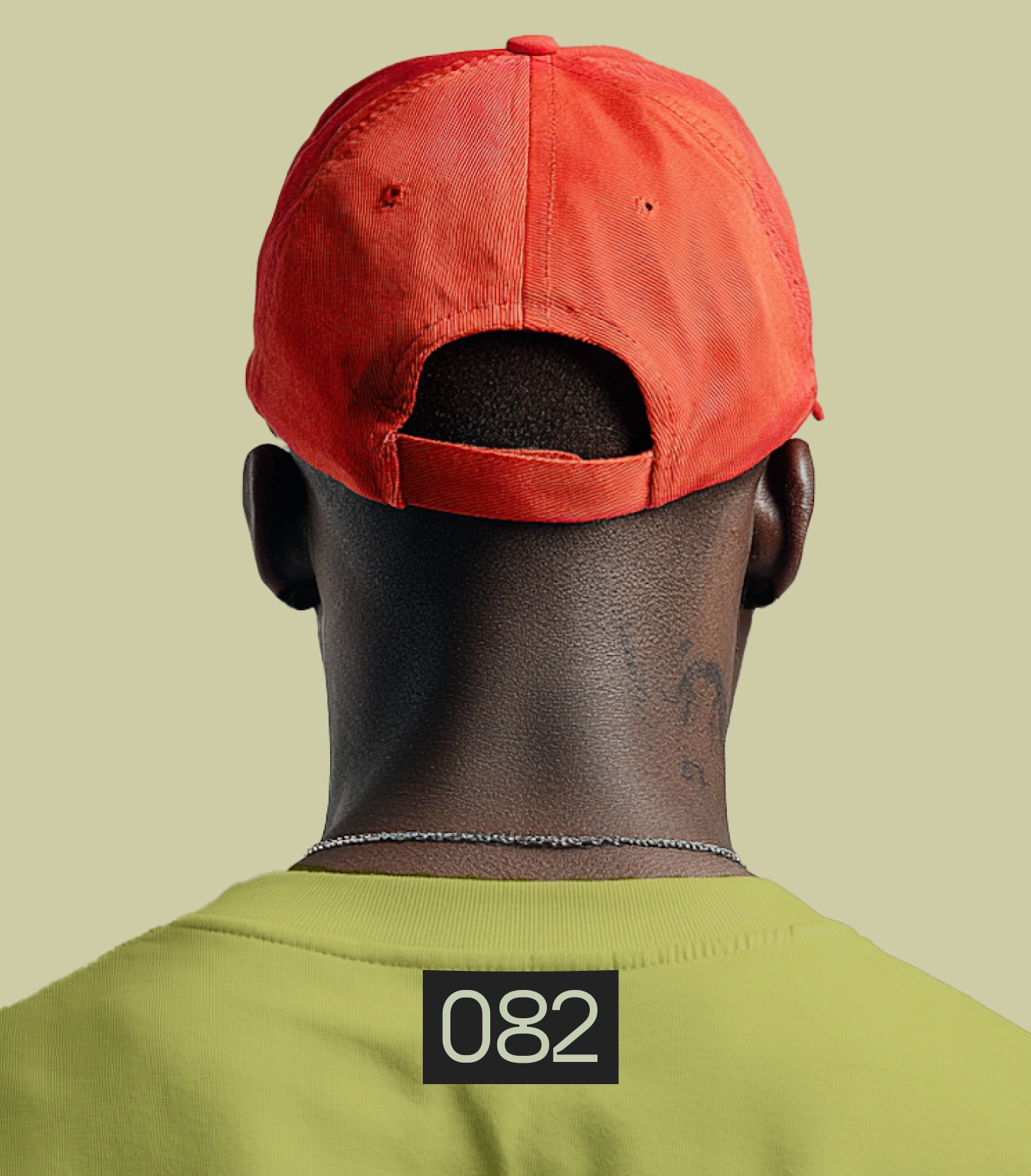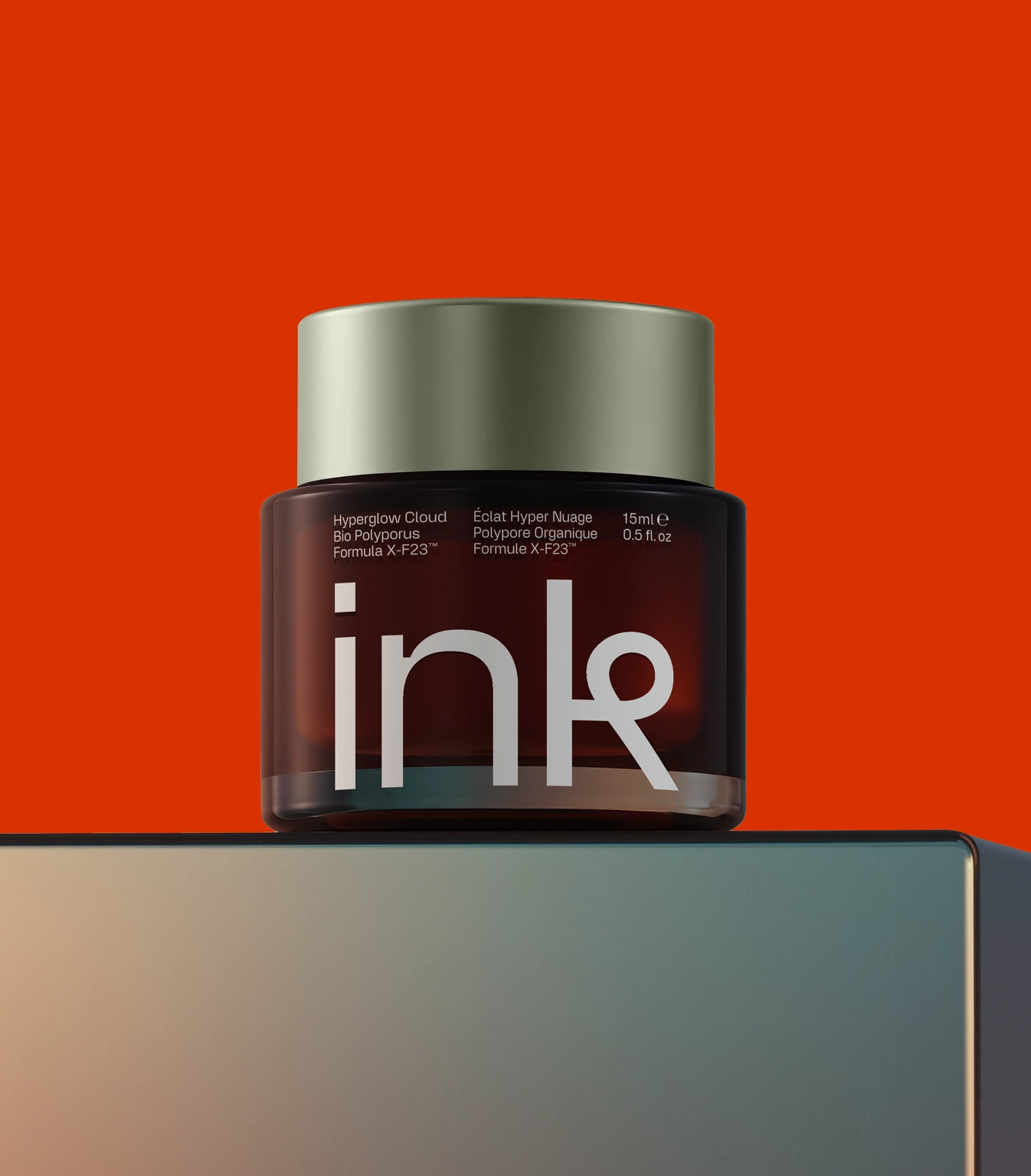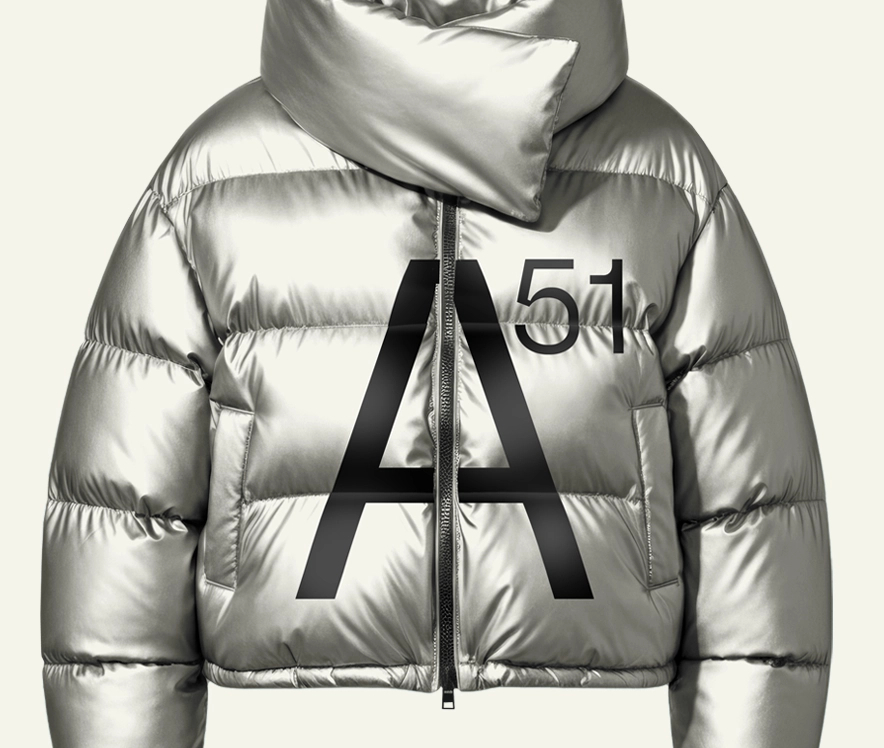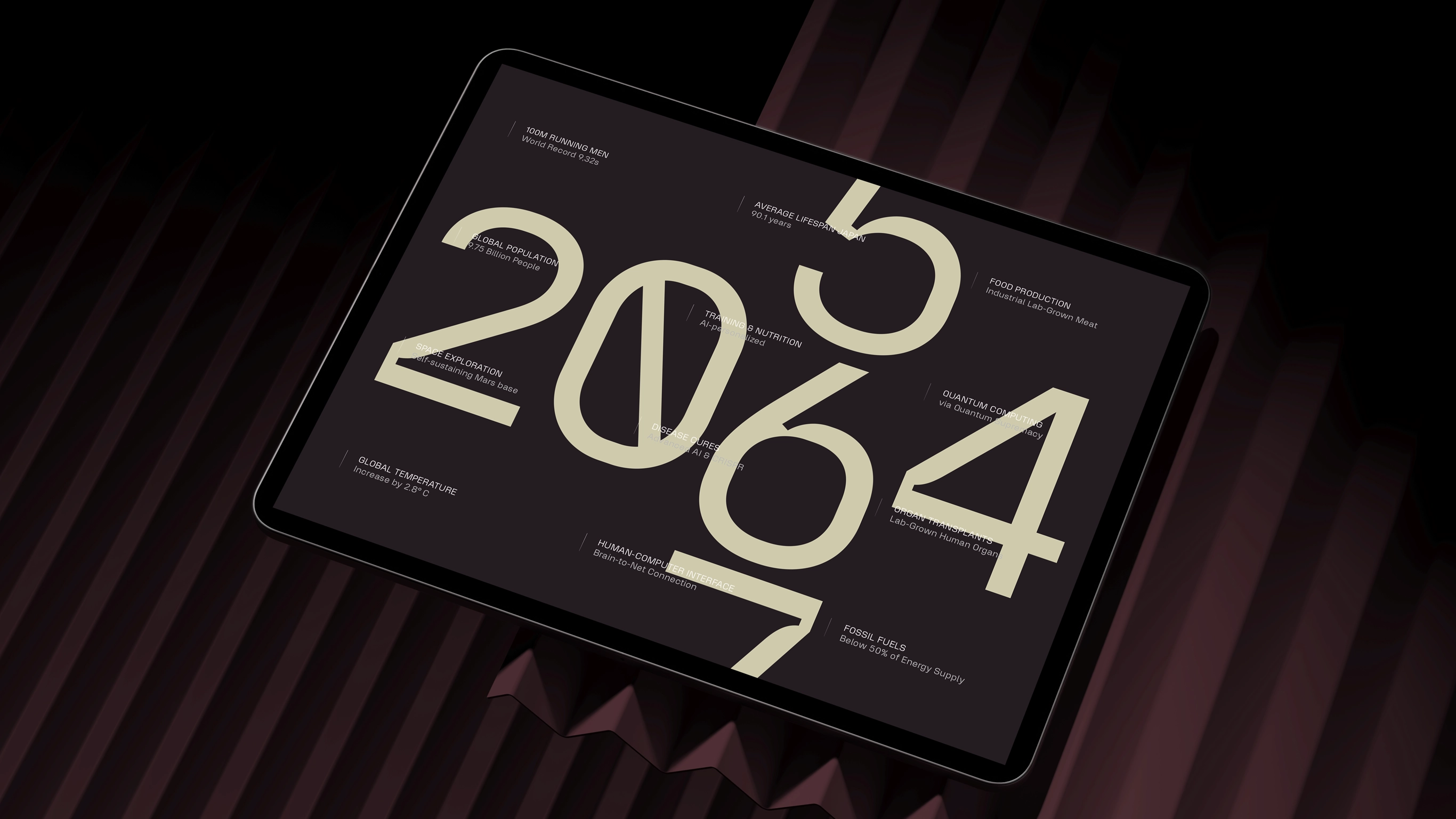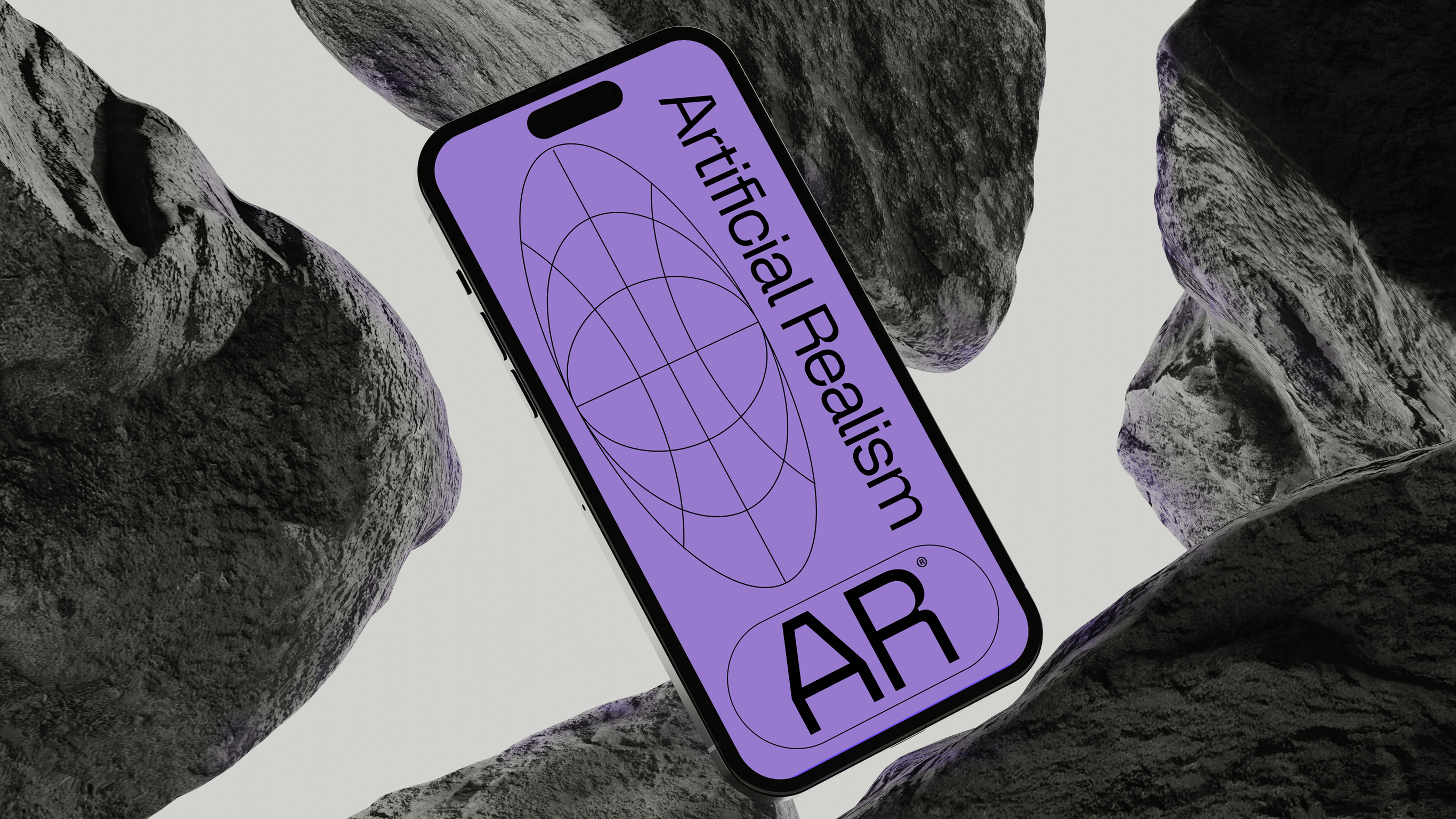
Roboter
This typeface is built on precision, where every line, curve, and interval earns its place. It’s technical and geometric, but has warmth and character. Sharp edges and soft turns. Roboter is a tool for contemporary brands to reflect their excellence and intelligence. Its typographic voice is both exacting and expressive — a foundation for identities that value structure, integrity, and clarity.